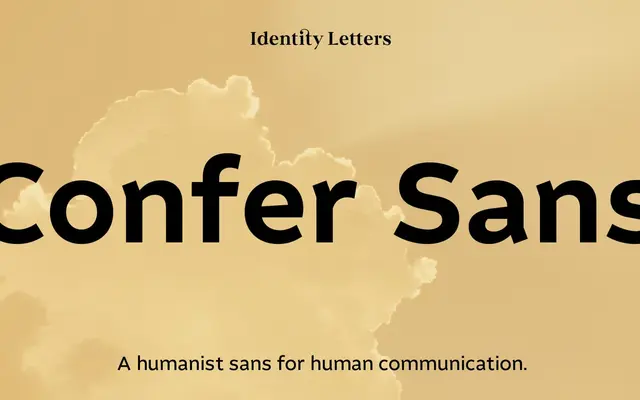
Confer Sans
A humanist sans in 16 styles that takes angular, uncorrected stroke endings from the broad-nib pen as its defining formal feature.
Rather than smoothing terminals to meet a geometric programme, Confer Sans lets stroke endings remain angular in the manner of a broad-nib marker, giving it a candid warmth that sets it apart from neogrotesk neutrality. Eight weights from Thin to Black each come with an italic, and each style carries close to 700 glyphs including ten or more figure sets, boxed and circled numbers and arrows, and support for 100+ languages. The foundry positions it for cultural, educational and branding work where anonymous authority would be the wrong register.
Identity Letters explicitly describe Confer Sans as a humanist sans, drawing on the broad-nib pen or marker for angular stroke endings rather than the neutralised terminals of neogrotesk designs.